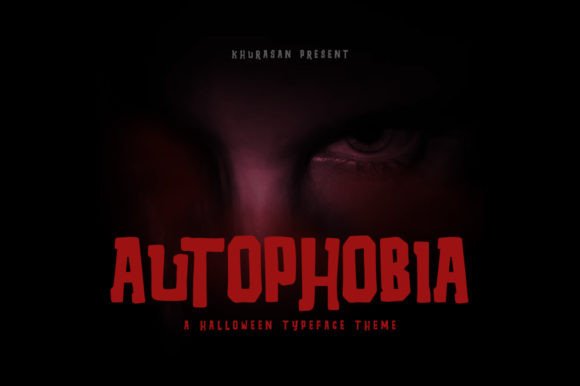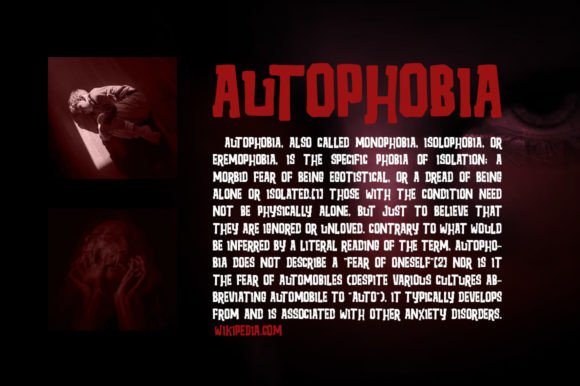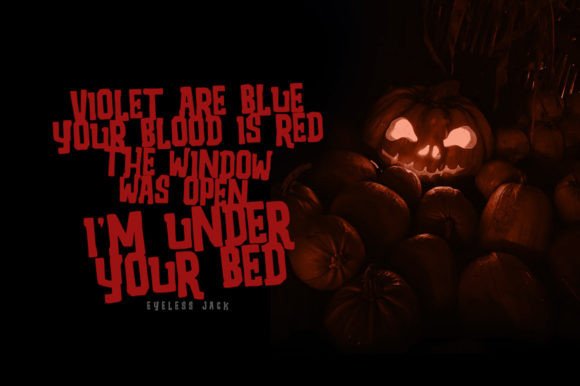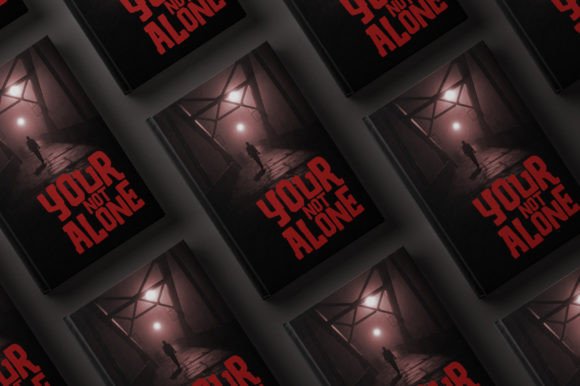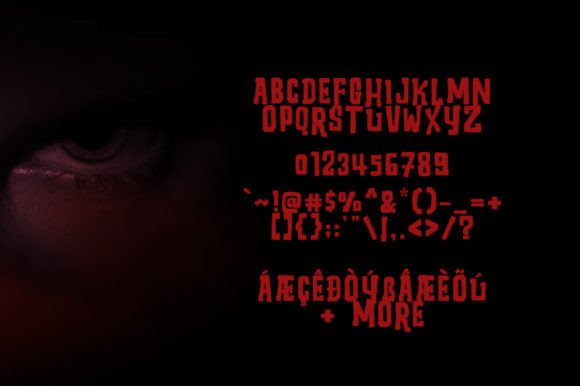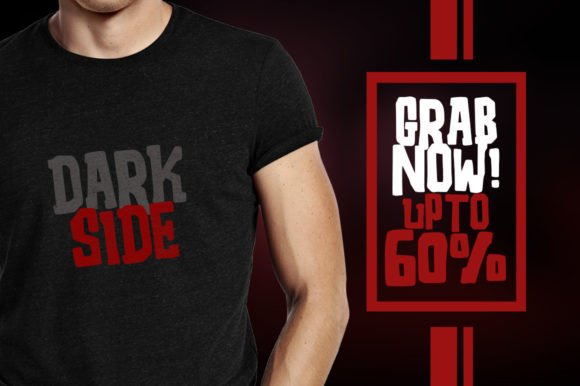
Autophobia
Autophobia: A Unique Horror-Themed Slab Serif Font
Autophobia is a unique and attractive slab serif font designed specifically for horror and Halloween-themed projects. This versatile typeface brings an eerie character to various design applications while maintaining visual appeal.
Key Features of Autophobia
• Unique Design: Offers distinctive horror-themed letterforms.
• Attractive Style: Combines spooky elements with visual appeal.
• Horror Character: Perfect for creating scary atmospheres.
• Versatile Application: Adapts well to various contexts.
Best Uses for Autophobia
Thanks to its horror-themed characteristics, Autophobia works especially well for:
When using Autophobia in your designs, keep these tips in mind:
• Try it for headlines or display text to showcase its horror elements.
• Use different sizes to highlight its unique features.
• Let its spooky character enhance Halloween projects.
• Take advantage of its versatility for various horror-themed applications.
To sum up, Autophobia is an excellent choice for designers seeking a unique and attractive slab serif font for horror-themed projects. Its distinctive style makes it perfect for creating scary atmospheres while maintaining visual appeal. Whether you’re designing Halloween materials or developing horror-themed projects, Autophobia offers the perfect blend of spookiness and style[2].
Furthermore, Autophobia’s distinctive design allows it to shine in contexts where both horror and attractiveness are key. For instance, from Halloween promotions to scary events, this font can elevate your projects with its unique style. Also, its horror-themed yet appealing appearance works particularly well in designs that aim to make a spooky impact[2].
In conclusion, Autophobia truly captures the essence of horror design in slab serif typography. Its ability to work well across various contexts shows how versatile it can be. Therefore, for those wanting to add a touch of horror to their work, Autophobia can enhance any design with its distinctive style. Ultimately, it’s perfect for designers aiming to make a scary, memorable impact across Halloween and horror-themed projects.